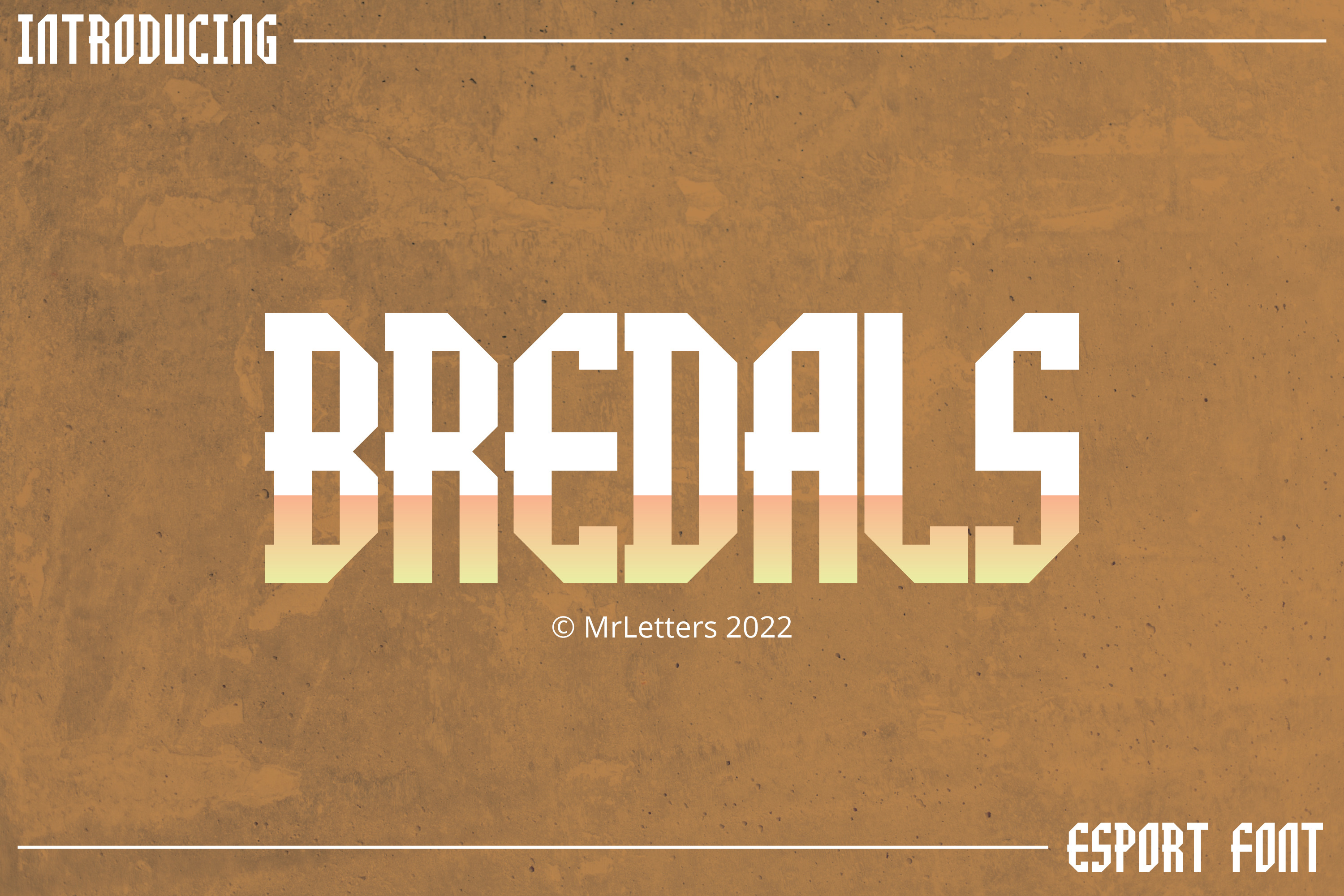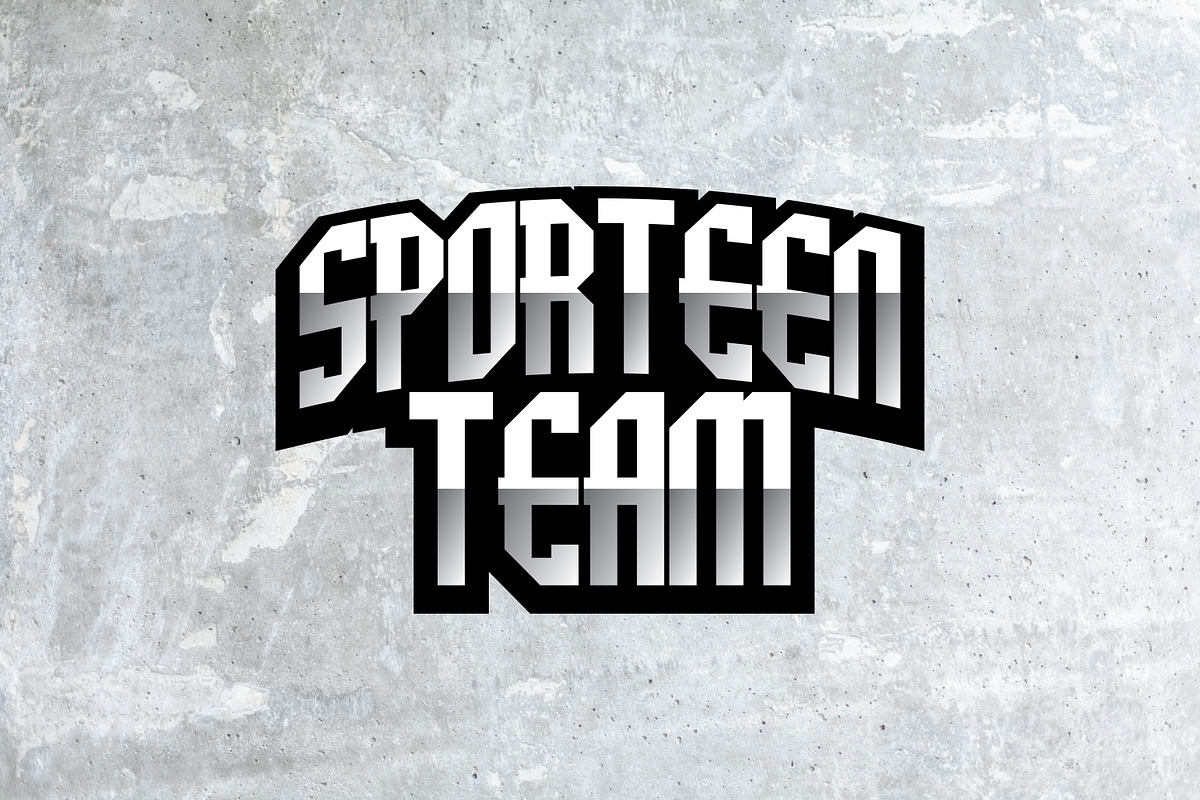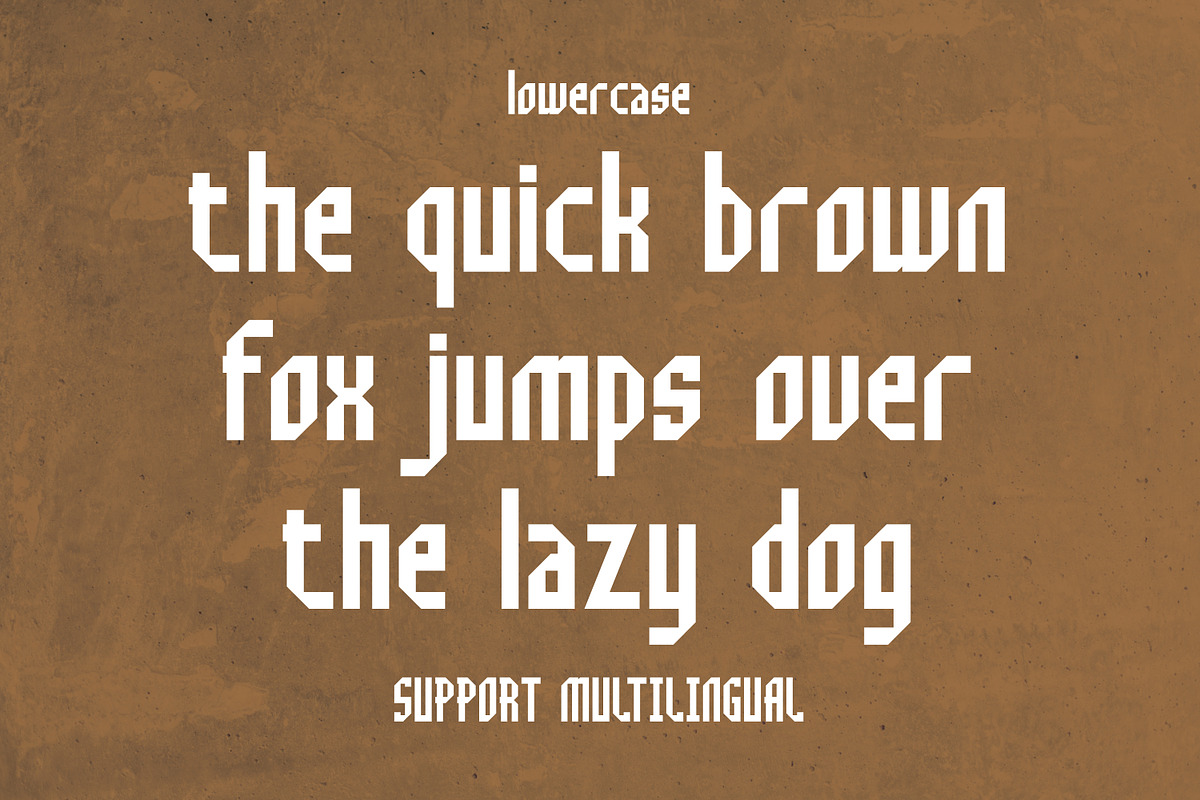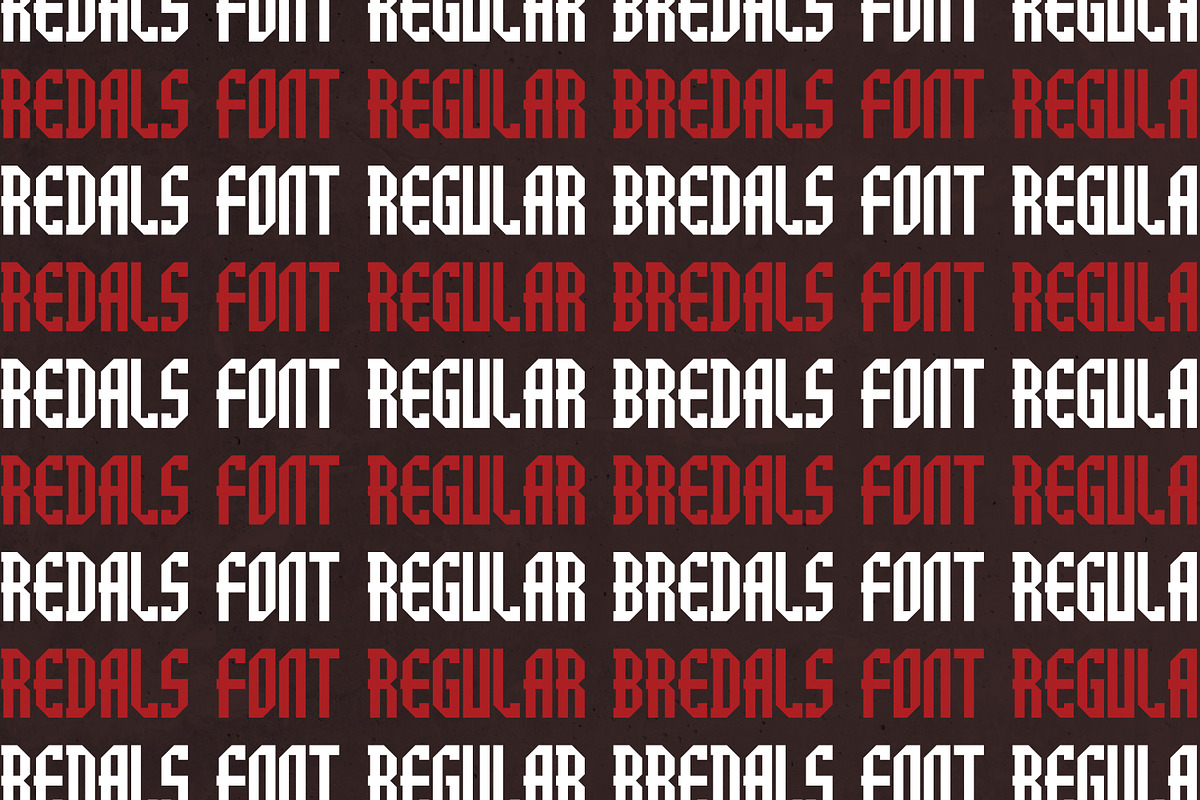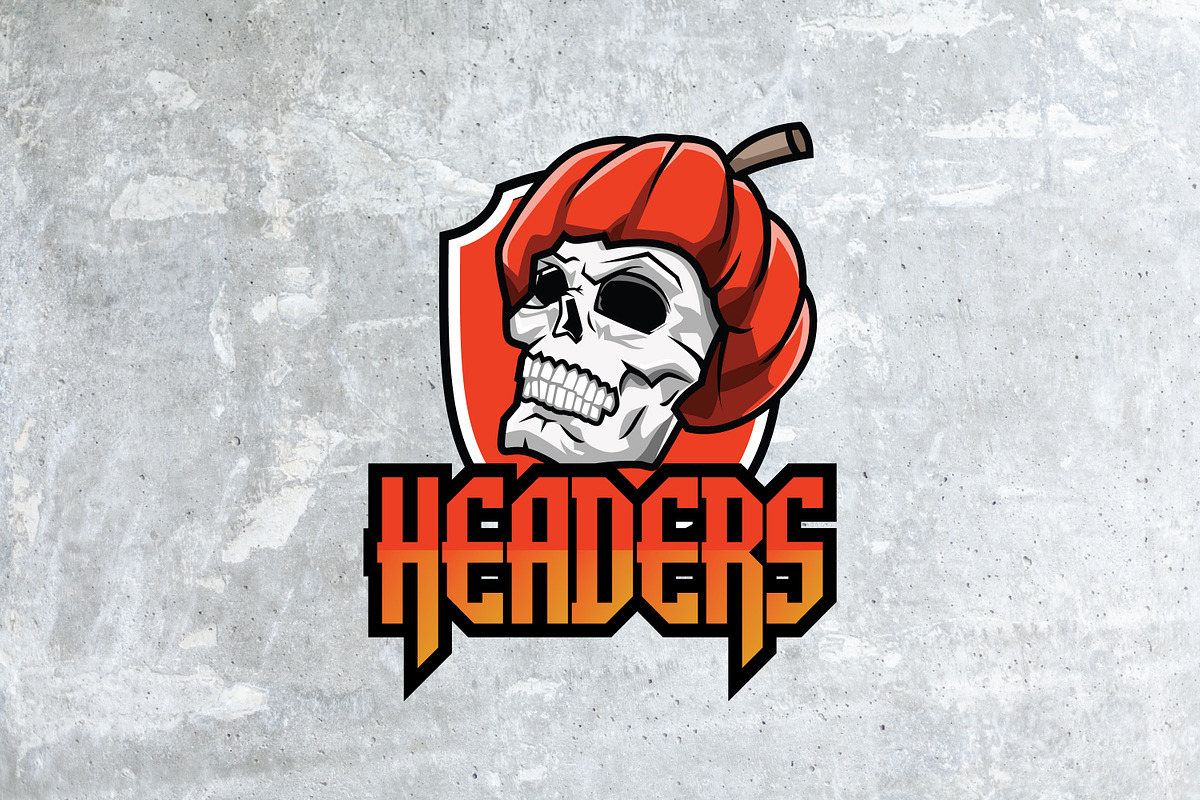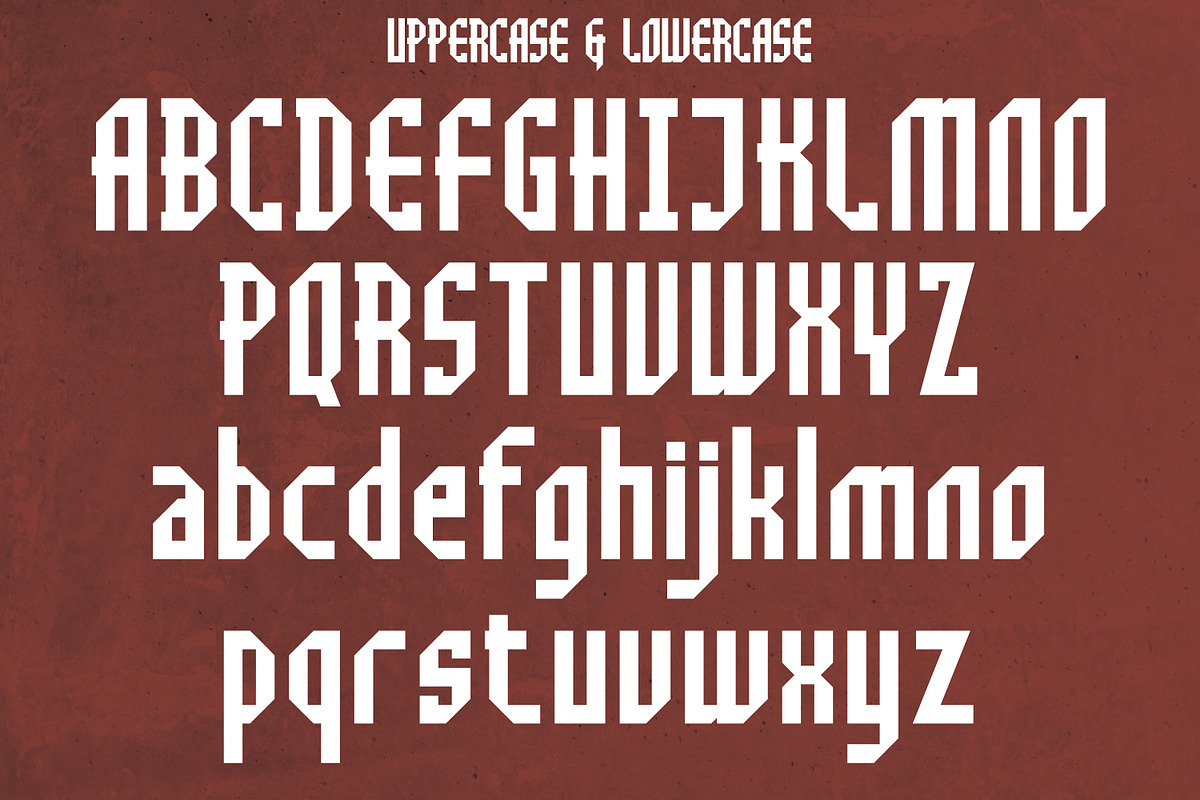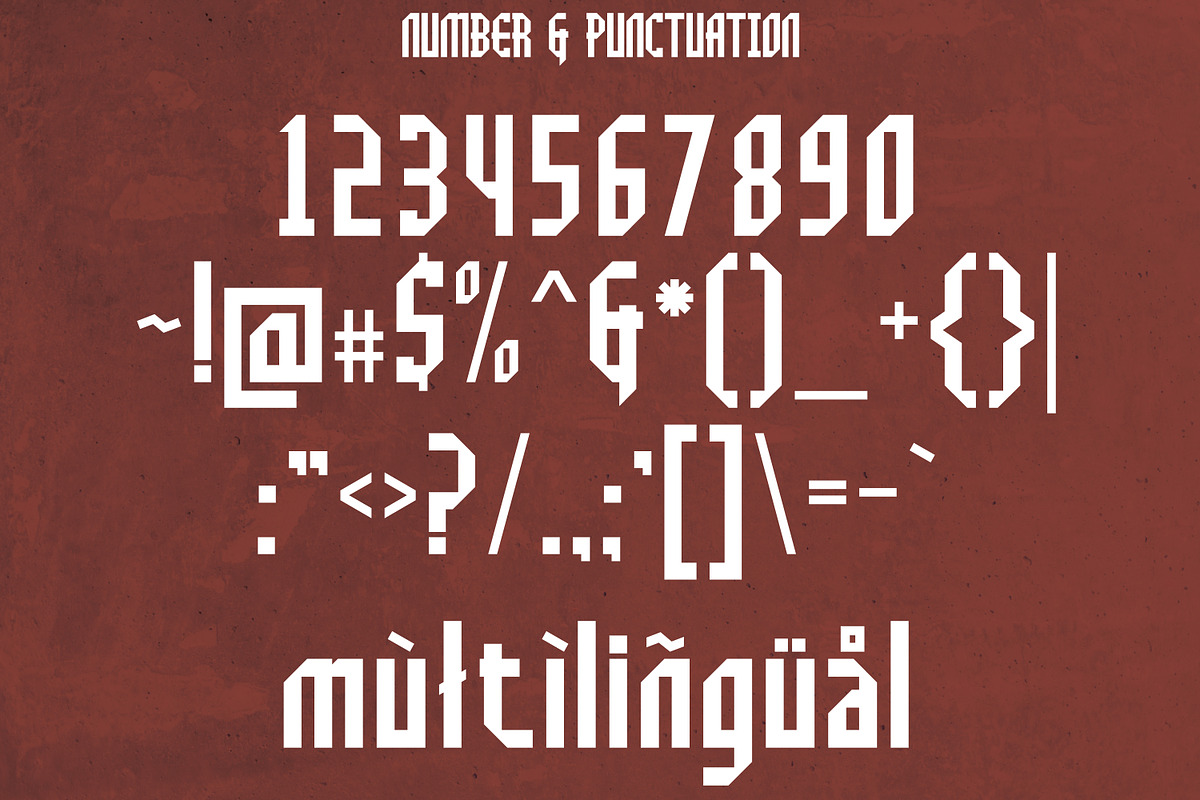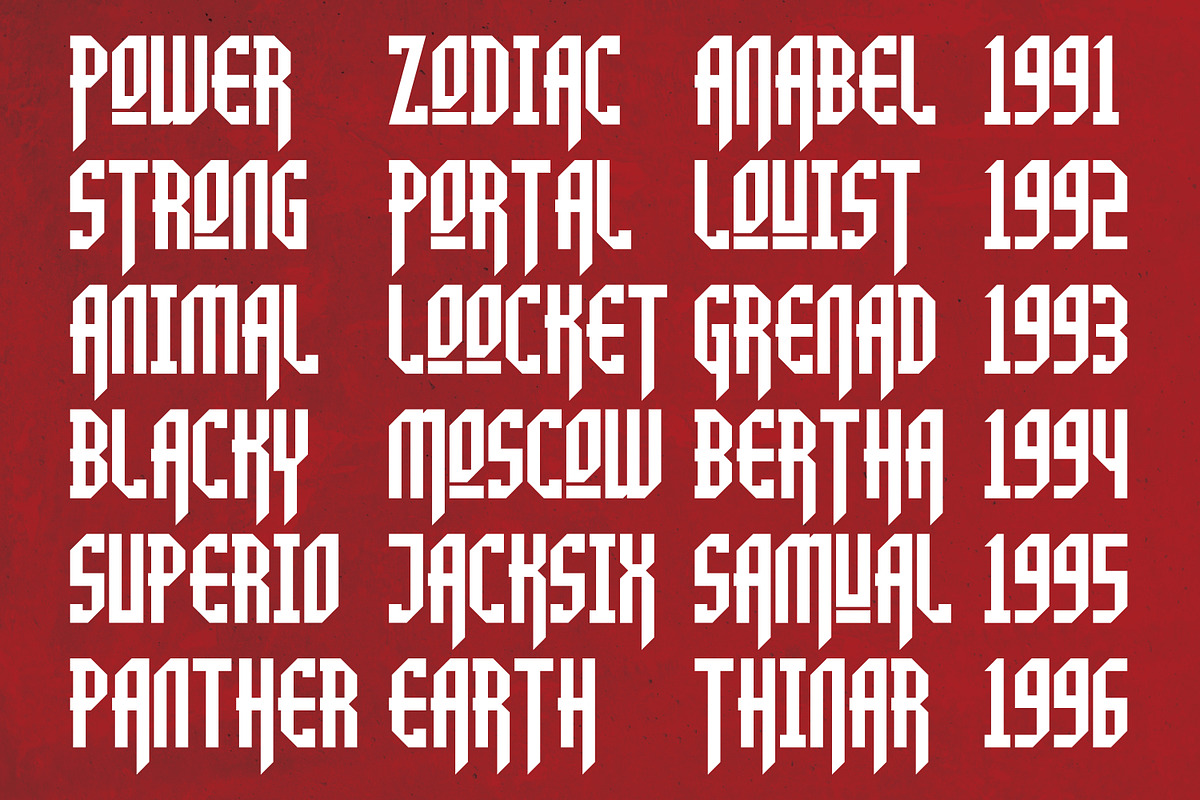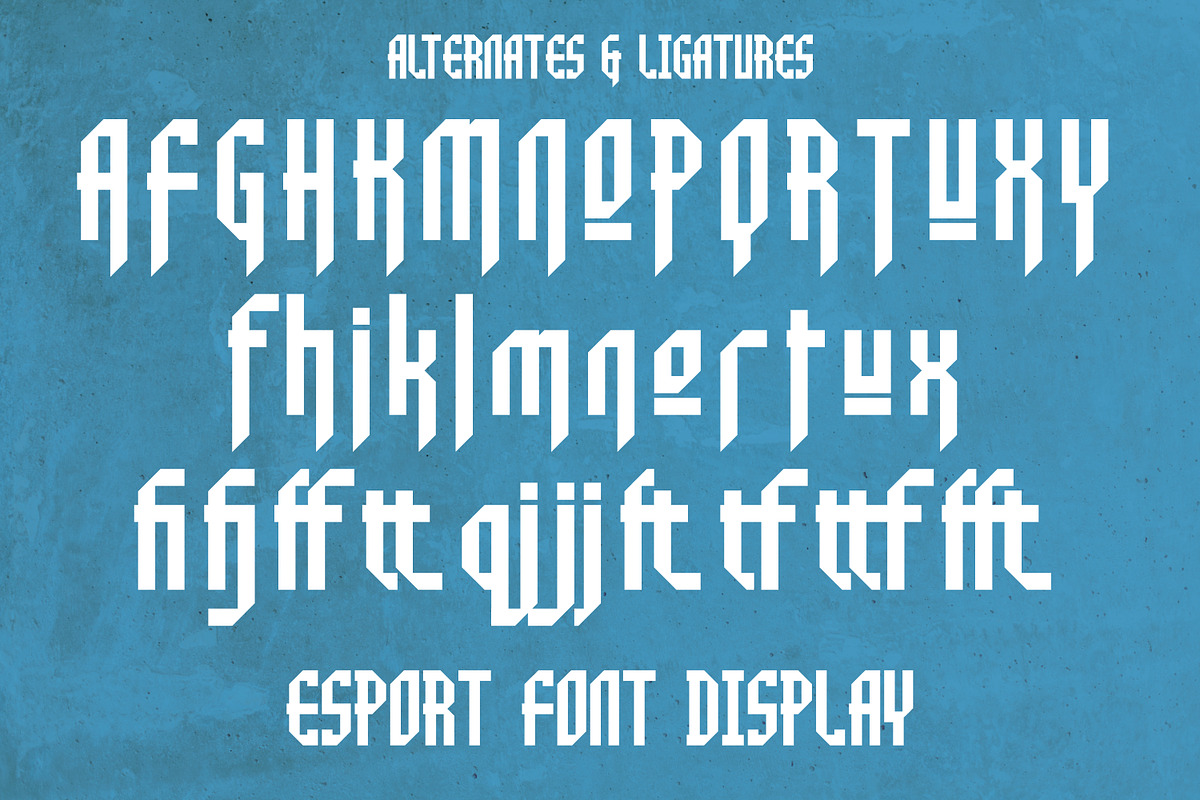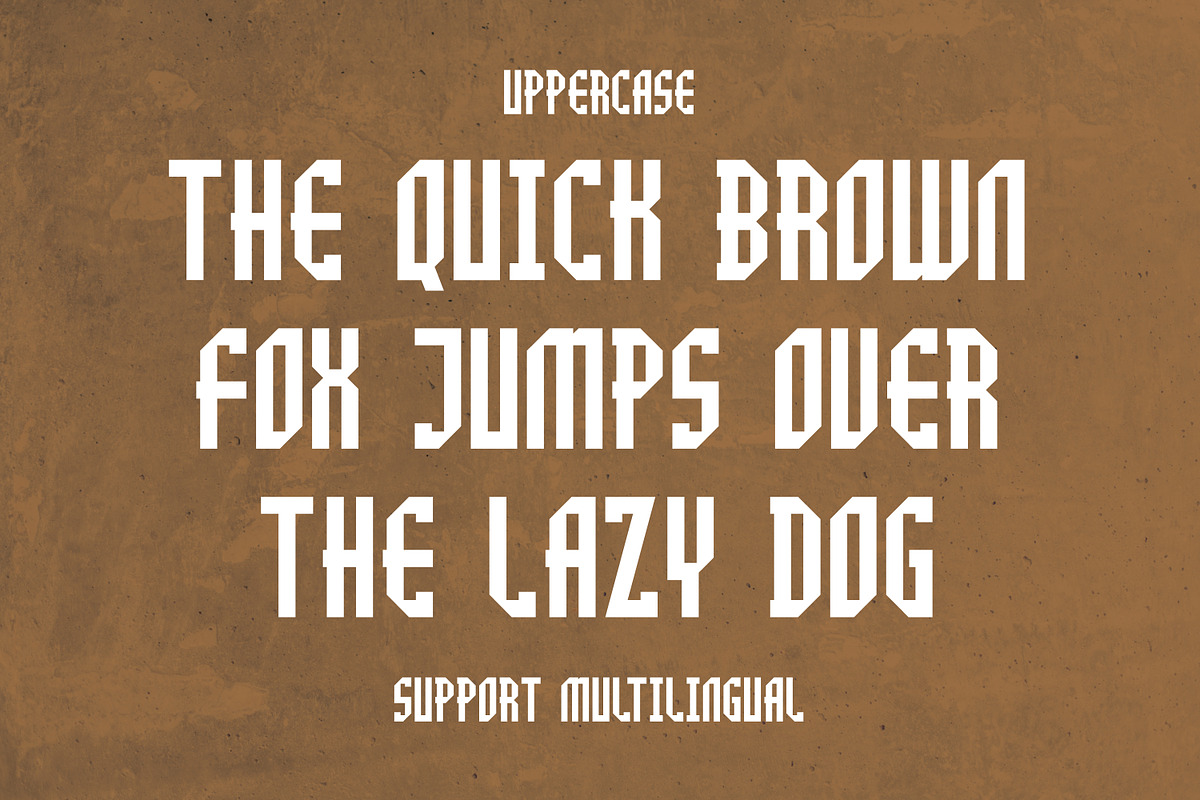
Bredals | Esport Display Font
Bredals Esport Font
In a new generations, we analyze that any designer or brand owner need to make their brand standout. As our focus that analyze any typeface that helps to leverage any logo design to look more modern and unique. We prepared this font with any unique characters to help you create unlimited variations for your creative needs.